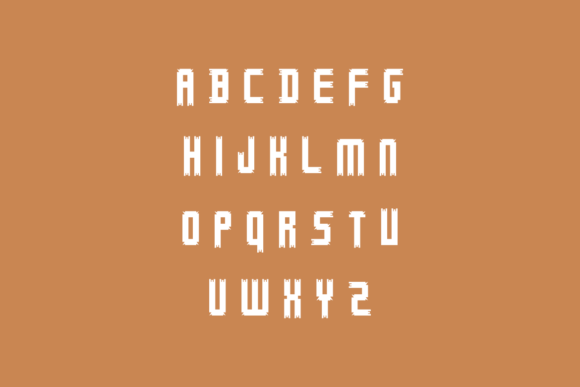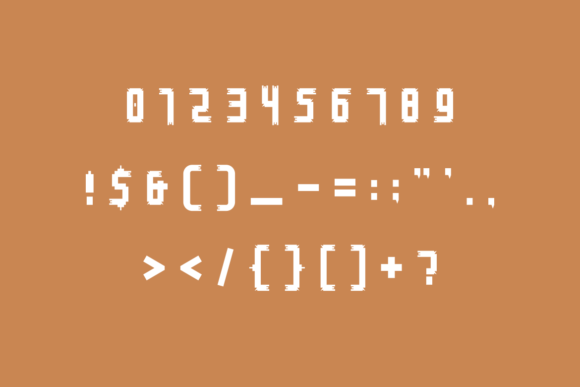
Introduction to Roadr Font
You know that feeling when you’re working on a design project and you just can’t seem to find the right font to make it pop? You’ve tried countless combinations, but nothing seems to capture the essence of your creative vision. That’s where the Roadr Font comes in – a game-changing display font designed to add a fresh touch to your headlines and logotype projects.
With its strong, confident, and dynamic feel, the Roadr Font is the perfect design resource to elevate your creative project. Whether you’re working on a high-quality print design or a digital campaign, this font is sure to make your work stand out. And the best part? It’s available for free download, giving you the freedom to experiment and push the boundaries of your design.
What sets the Roadr Font apart is its versatility and ease of use. With a transparent background, you can easily overlay it on top of any image or texture, creating a unique and eye-catching effect. As a designer, you know how valuable it is to have a reliable design resource that can help you bring your ideas to life. That’s exactly what the Roadr Font offers – a high-quality, professional font that’s ready to take your designs to the next level.
Key Features of Roadr Font
- High-quality design resource ideal for creative projects, including logos, branding, and typography.
- Transparent background, allowing for seamless integration with any design element.
- Optimized for use at high resolutions, ensuring crisp and clear typography even in large formats.
- Perfect for designers and artists looking for a unique and eye-catching font to elevate their work.
- Includes a wide range of characters, including uppercase and lowercase letters, numbers, and punctuation marks.
Honest Review: Roadr Font
I recently had the chance to work with the Roadr Font, and I’m excited to share my honest thoughts with you. As a designer, I’m always on the lookout for high-quality design resources that can elevate my creative projects. In this review, I’ll break down what I liked about the Roadr Font and where it falls short.
- High-quality typography: The Roadr Font has a clean, modern design that’s perfect for a variety of creative projects.
- Transparent background: This feature is a game-changer for designers who need to work with transparent backgrounds.
- Limited font styles: While the Roadr Font is a great starting point, it’s limited in terms of font styles and weights.
- Not ideal for complex projects: The font may not be the best choice for complex, multi-layered designs.
Overall, I’m impressed with the Roadr Font’s potential, but it’s not a one-size-fits-all solution. It’s perfect for simple, modern designs that need a clean, high-quality typography. If you’re looking for a free design resource to add to your library, the Roadr Font is definitely worth checking out.
Tips for Getting the Most Out of Roadr Font
To maximize the potential of Roadr Font, experiment with different font sizes, colors, and styles. This will help you achieve a unique look that elevates your creative project.
Common Use Cases for Roadr Font
Some common use cases for Roadr Font include: creating eye-catching social media graphics, designing professional presentations, and crafting engaging documents. With its high-quality design and transparent background, Roadr Font is an excellent addition to any design resource library.